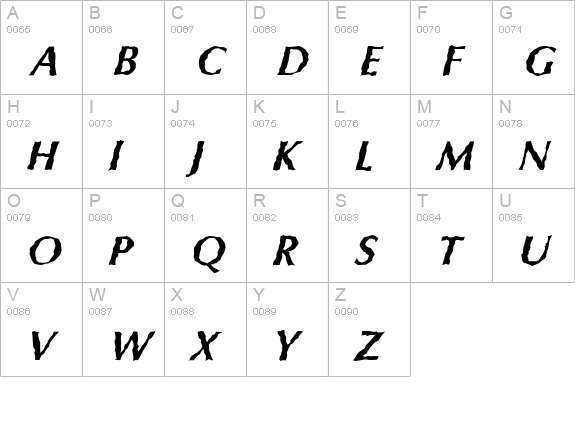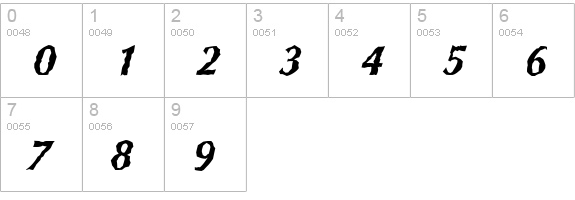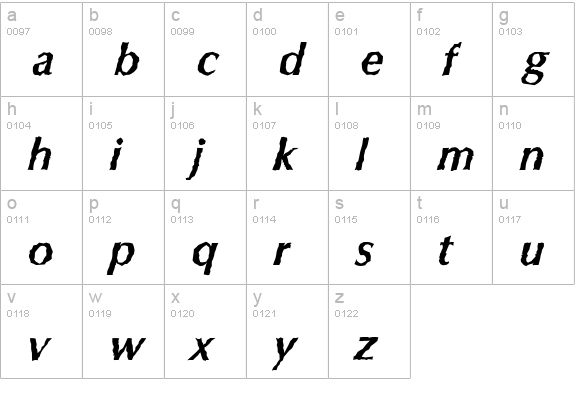
ColumbiaRandom-BoldItalic Font Details
ColumbiaRandom-BoldItalic is a striking and unique typeface that exudes a sense of boldness and creativity. Its dynamic and random design features a blend of thick strokes and italicized flair, making it perfect for adding a touch of modern sophistication to any project. Whether you're designing a logo, poster, or website, this font will make a statement and captivate your audience. The best part? ColumbiaRandom-BoldItalic is available for free download at FontsMarket.com. So go ahead and enhance your designs with this eye-catching and versatile font today!